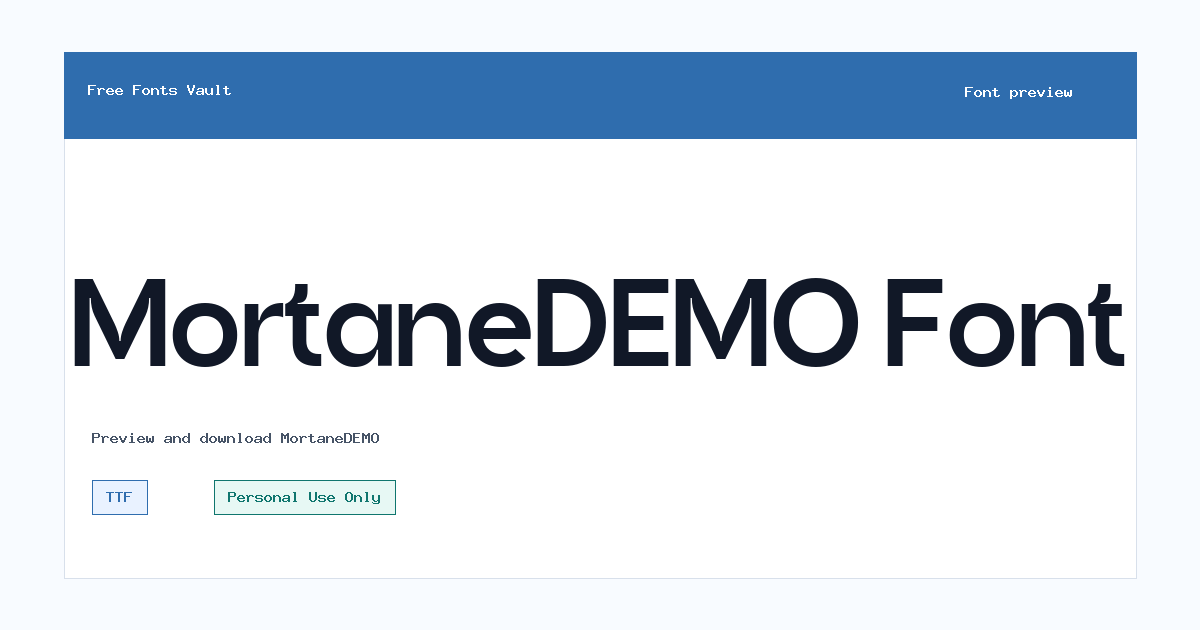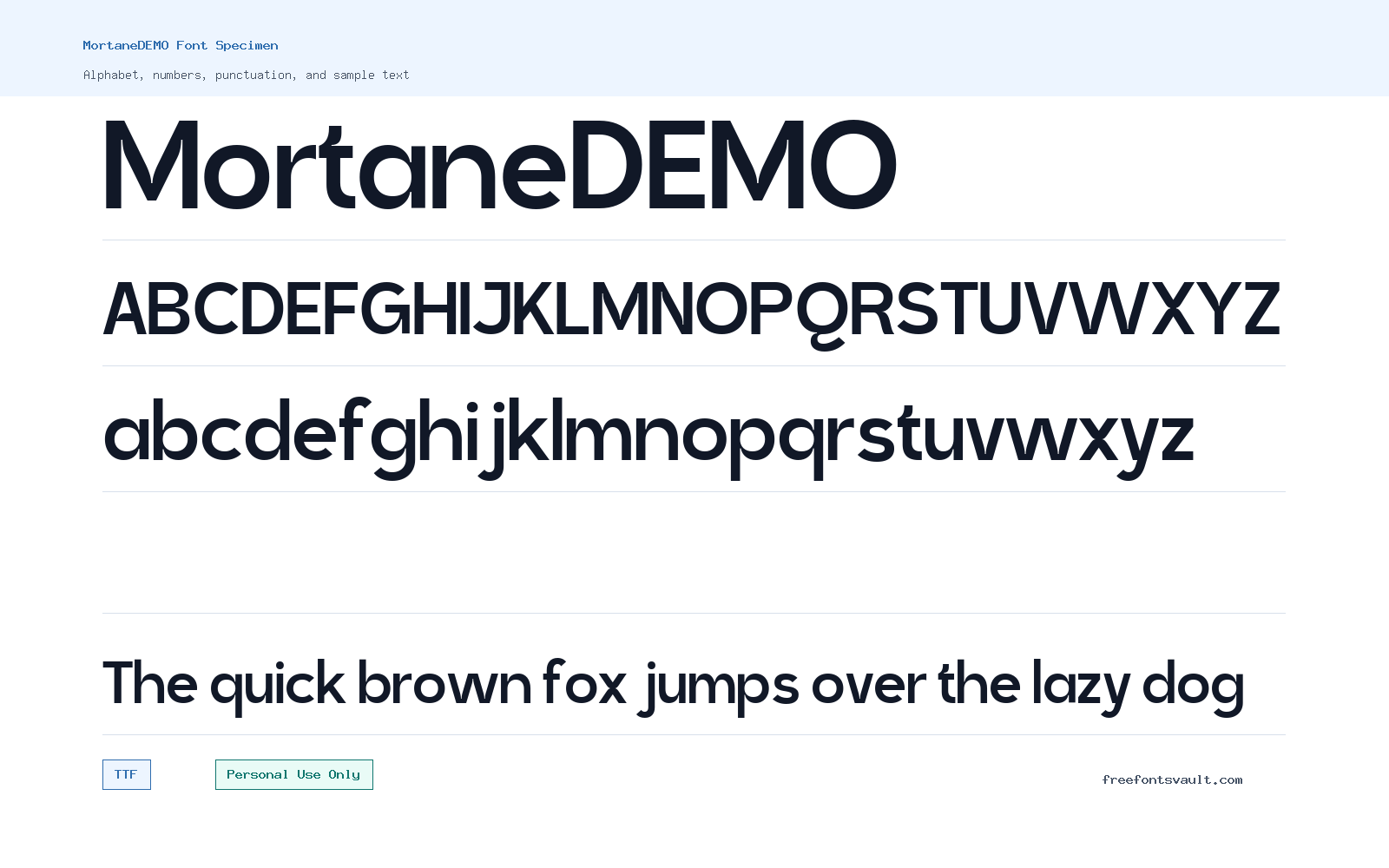
MortaneDEMO
- Designer Ragamkata Studio
MortaneDEMO font.
MortaneDEMO is a sans serif demo font with a clean, modern feel for display-focused design work. It is best treated as a personal-use font, so it is useful for testing ideas, private drafts, and non-commercial mockups before you decide whether a wider license is needed.
About MortaneDEMO Font
MortaneDEMO is listed as a sans serif font and comes in a Regular TTF style. With one regular-weight file, it is straightforward to try in design apps, font preview tools, and basic web mockups. Because the available file is a demo version, keep your expectations practical: use it to test the shape, spacing, and personality of the typeface rather than assuming it covers every production need. It may work well for titles, clean branding experiments, poster headlines, social graphics, and short blocks of display text where a simple sans serif voice is needed.
For designers, the safest way to judge MortaneDEMO is to preview it with the exact words you plan to use. Test uppercase titles, mixed-case names, short taglines, numbers, and punctuation. If you are exploring logo concepts, check how the letters sit together in the brand name and whether any pairs feel too tight or too open. For posters and web mockups, try it at large sizes first, then reduce it to see where the design starts to lose clarity. Since only the regular style is available, you may need to create contrast through size, spacing, color, or pairing rather than relying on bold, italic, or multiple weights.
MortaneDEMO can be a useful choice when you want a direct sans serif look without adding too much decoration. It should pair best with quieter text faces that do not compete with the headline. For example, use MortaneDEMO for a title or logo draft, then choose a readable serif or neutral sans serif for paragraphs, captions, and longer explanations. Avoid using it for long body text until you have tested readability at small sizes, line spacing, and screen resolution. A font can look strong in a large preview but feel tiring when used across several paragraphs.
- Sans serif demo font in a Regular style
- Single 400-weight style suited to simple headline and mockup experiments
- Useful for checking logo drafts, poster titles, and short display text
- Best paired with a separate readable font for longer body copy
- Personal logo concepts and brand-name testing
- Poster headlines and event-title mockups
- Social media graphics for non-commercial drafts
- Website hero-section mockups
- Typography studies and layout experiments
- Short titles where a clean sans serif style is needed
MortaneDEMO is credited to Ragamkata Studio. No foundry information or official designer URL is confirmed here.
Who designed MortaneDEMO?
MortaneDEMO is credited to Ragamkata Studio.
How many styles does MortaneDEMO include?
One Regular style is listed, with normal style and 400 weight.
Is MortaneDEMO good for body text?
It is better to test it first for short text and display use. Since only a regular demo style is available, use a more complete and readable family for long paragraphs if the layout needs strong text performance.
What should I pair with MortaneDEMO?
Pair it with a simple, readable body font. A neutral sans serif can keep the layout clean, while a restrained serif can add contrast without competing with the headline.